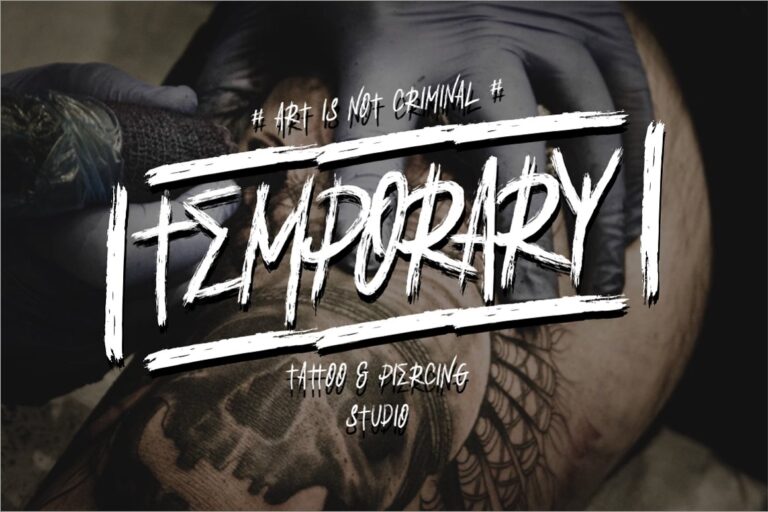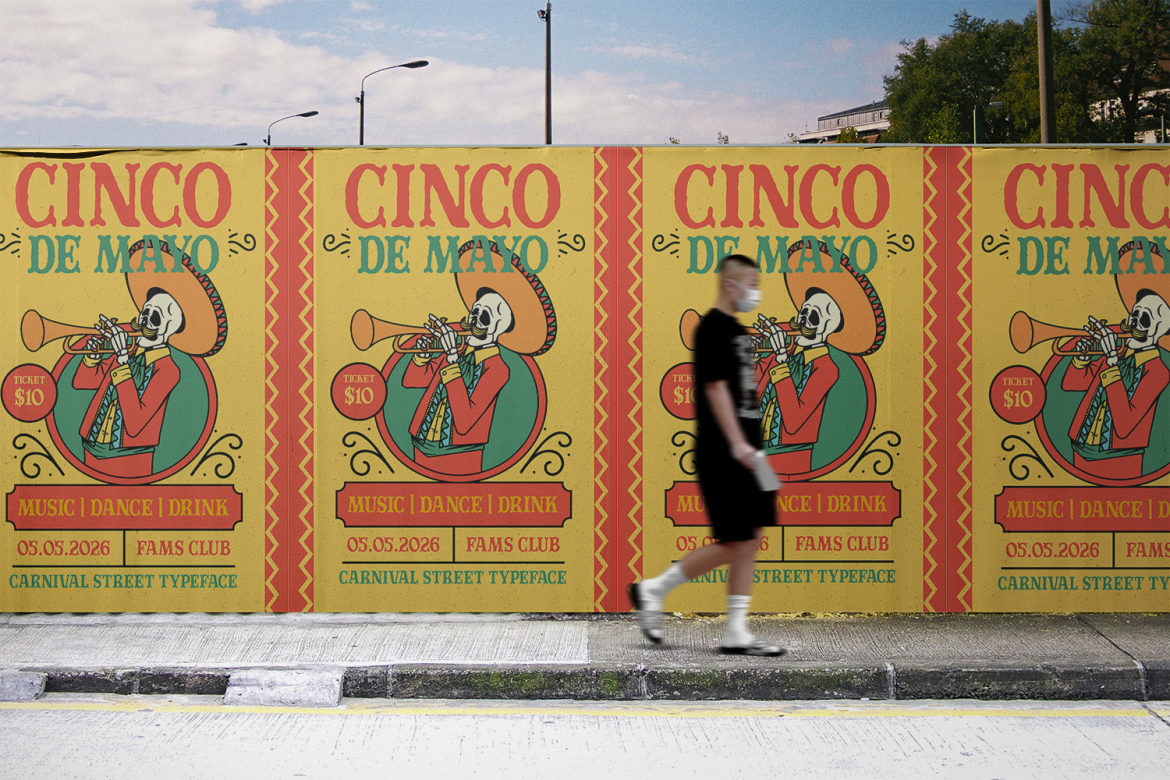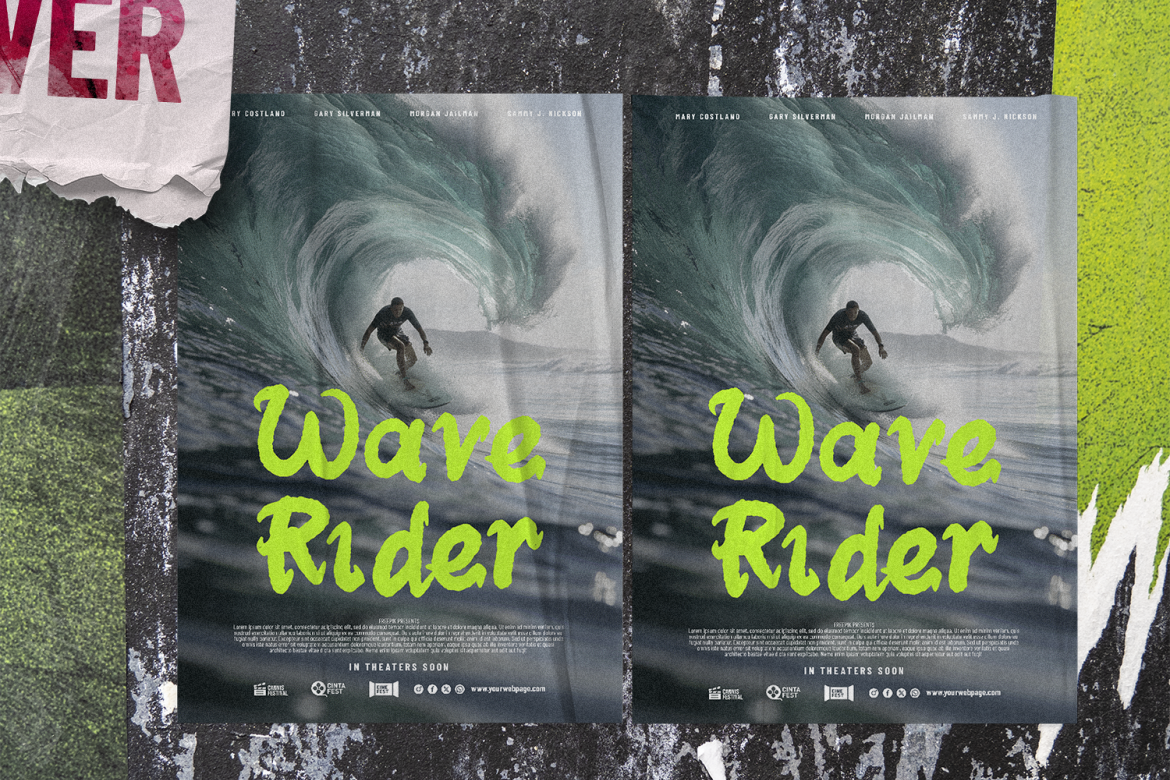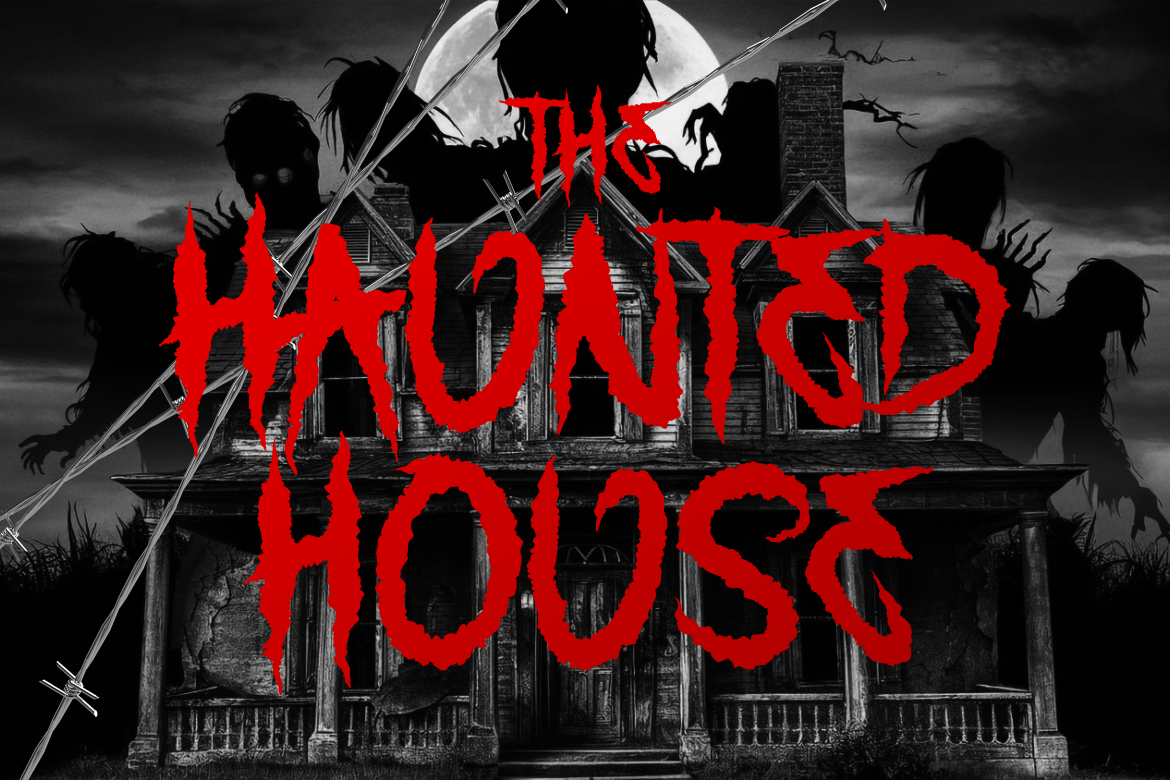
12 Best Rough Fonts (Including 2 Free Fonts) for Logos, Packaging, and Branding
Clean typography has dominated branding for years, but many businesses are now looking for something with more personality. That’s where rough font design comes in.
Rough fonts embrace imperfections. They feature distressed textures, brush strokes, uneven edges, worn surfaces, and handcrafted details that make designs feel more authentic and memorable. Rather than appearing polished and corporate, these fonts create emotional connections through character and originality.
Modern typography trends are increasingly moving toward expressive lettering, visual texture, and intentional imperfections that help brands stand out in crowded markets. Designers are using rough fonts to bring authenticity, craftsmanship, and individuality into logos, packaging, merchandise, and advertising.
Whether you’re creating a streetwear brand, food packaging, coffee shop identity, outdoor company, music project, or creative business, the right rough font can instantly transform your visual identity.
In this guide, we’ll explore 12 of the best rough font designs available today, including two free fonts you can start using immediately.
Initial Suggestion
Before choosing a rough font, think about the personality you want your brand to communicate.
Ask Yourself These Questions
• Do you want a rugged appearance?
• A handcrafted feel?
• A vintage atmosphere?
• A rebellious attitude?
• A creative and artistic identity?
Different rough fonts create different emotional responses.
Prioritize Readability
Texture is important, but readability should never be sacrificed.
The best rough fonts balance character with clarity.
Match the Font to the Industry
For example:
• Food brands often benefit from playful rough fonts.
• Outdoor brands work well with distressed display fonts.
• Music projects frequently use aggressive brush fonts.
• Horror brands need rough fonts with darker personalities.
Build a Consistent Identity
Your chosen font should work across:
• Logos
• Packaging
• Websites
• Social media
• Advertising
• Merchandise
Consistency creates stronger brand recognition.
1. Dusty Express Rough Texture Font
A rugged display font with strong distressed details.
Pros
• Vintage character
• Excellent logo visibility
• Strong distressed texture
• Memorable branding appeal
• Outdoor brands
• Coffee packaging
• Craft products
• Vintage merchandise
• Rustic businesses
2. Power Rough Texture Brush Font
A bold brush font packed with raw energy and textured strokes.
Pros
• Powerful brush texture
• Excellent readability
• High visual impact
• Dynamic movement
• Sports branding
• Music covers
• Streetwear brands
• Event posters
• Aggressive marketing campaigns
3. Bloxine Rough Logo Font
A handcrafted logo font with rough edges and strong personality.
Pros
• Handmade appearance
• Strong logo performance
• Rustic personality
• Highly versatile
• Restaurant branding
• BBQ businesses
• Food packaging
• Product labels
• Rustic logos
4. Carnival Street Rough Classic Display Font
A rough serif display font inspired by festive street culture.
Pros
• Classic display style
• Distinctive rough texture
• Strong branding presence
• Unique vintage charm
• Event branding
• Festival posters
• Entertainment projects
• Packaging design
• Retro-inspired brands
5. Chumba Wamba Display Rough Font
A thick display font with intentionally rough and playful outlines.
Pros
• Fun personality
• Strong display impact
• Excellent headline font
• Distinctive appearance
• Posters
• Business branding
• Stickers
• Packaging
• Promotional materials
6. Ocean Brezze Rough Brush Lettering Font
A rough brush font with a natural hand-lettered style.
Pros
• Organic brush texture
• Relaxed personality
• Modern handcrafted look
• Great visual flow
• Lifestyle brands
• Surf brands
• Travel projects
• Social media graphics
• Creative businesses
7. Wingo Food Font
A playful rough font created specifically for food-related branding.
Pros
• Friendly appearance
• Food-focused character
• Easy readability
• Fun visual identity
• Food packaging
• Restaurants
• Food trucks
• Beverage products
• Café branding
8. Rougher
A bold rough display font designed for maximum visual impact.